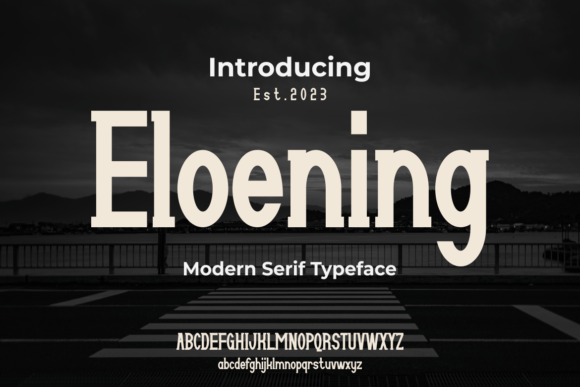
**Journey through Time, Inspired by the charm of Classic Books: Introducing Eloening Serif Font**
In the realm of typography, where countless fonts vie for attention, one name stands out with a timeless allure: Eloening Serif. This remarkable serif font, meticulously crafted by the talented maikofarazhatta, is a tribute to the golden age of literature, capturing the essence of classic book titles and bringing them to life in vibrant, contemporary designs.
With its distinctive bold strokes and elegant curves, Eloening commands attention and exudes an air of sophistication. Each letter is a work of art, carefully drawn to convey a sense of heritage and refinement. Whether you're designing a logo, creating eye-catching T-shirt graphics, or embarking on an esports venture, Eloening is the perfect font to elevate your work and leave a lasting impression.
**Embark on an Extraordinary Journey with Eloening Serif**
In the world of design, it's all about making a statement. With Eloening Serif, the realm of possibilities is infinite. Unleash your creativity and watch as your designs transform into masterpieces.
- For logos, Eloening's bold presence will ensure your brand commands attention in any context. Its timeless aesthetic perfectly reflects the enduring values of your company.
- Embellish T-shirts with striking graphics using Eloening. Its standout style will have heads turning wherever you go, making a fashion statement that speaks volumes.
- Immerse yourself in the world of esports with Eloening. Its dynamic energy is the perfect companion for creating captivating visuals that capture the excitement and intensity of competitive gaming.
**Experience the Eloening Difference**
Eloening Serif is not just another font; it's an experience that transcends the ordinary. Prepare to be mesmerized as you witness the power of this font to transform your creative endeavors into extraordinary works of art.
- Immerse yourself in the timeless charm of classic literature with Eloening. Its vintage-inspired design evokes a sense of nostalgia and transports you to a world of forgotten stories.
- Elevate your brand to new heights with Eloening's bold and commanding presence. Let your logo radiate confidence and distinction, leaving an unforgettable mark on your customers' minds.
- Unleash your inner artist with Eloening. Its versatility lends itself to countless creative applications, from captivating social media posts to eye-catching invitations. Let your imagination soar as you explore the endless possibilities.
**Eloening Serif: The Key to Unlocking Your Creative Potential**
With Eloening Serif at your disposal, you hold the key to unlocking your true creative potential. Embrace the power of this font and watch as your designs flourish like never before. Let Eloening be your guide in the realm of typography, guiding you to new heights of inspiration and artistic achievement.